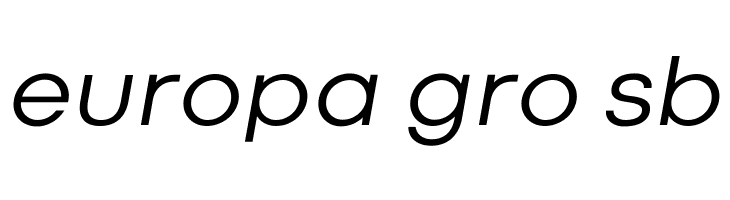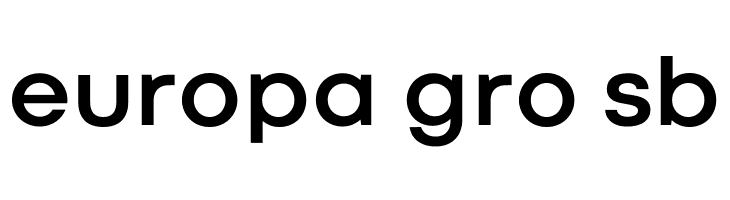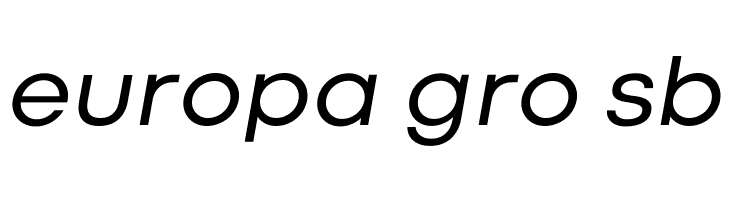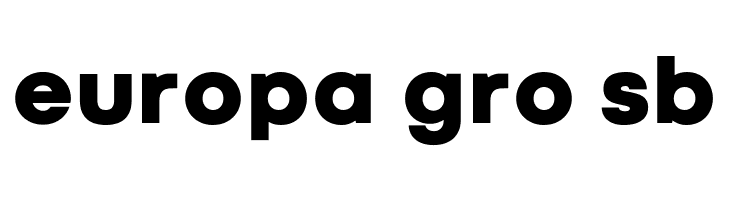
A bold, italicized font with a heavy weight and dynamic style.
A sleek, modern italic sans-serif font with a clean and dynamic appearance.
A modern, light italic font with a sleek and minimalistic design.
A sleek, modern italic font with clean lines and a dynamic feel.
A sleek, modern, thin italic font with a minimalist aesthetic.
A bold, modern sans-serif font with clean, geometric letterforms.
A bold, modern sans-serif font with clean lines and geometric shapes.
A minimalist, geometric sans-serif font with thin, uniform strokes.
A bold, geometric sans-serif font with a modern and impactful style.
A clean, modern font with geometric influences and consistent stroke width.